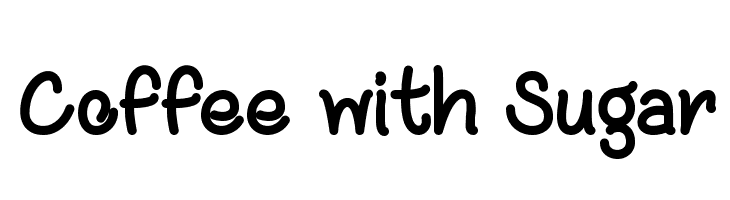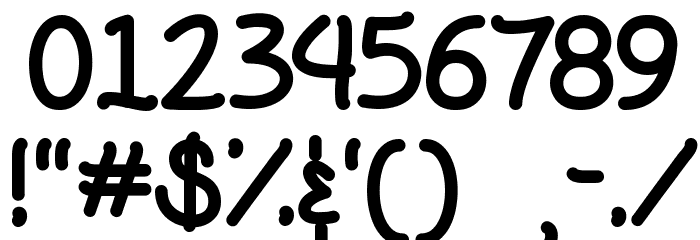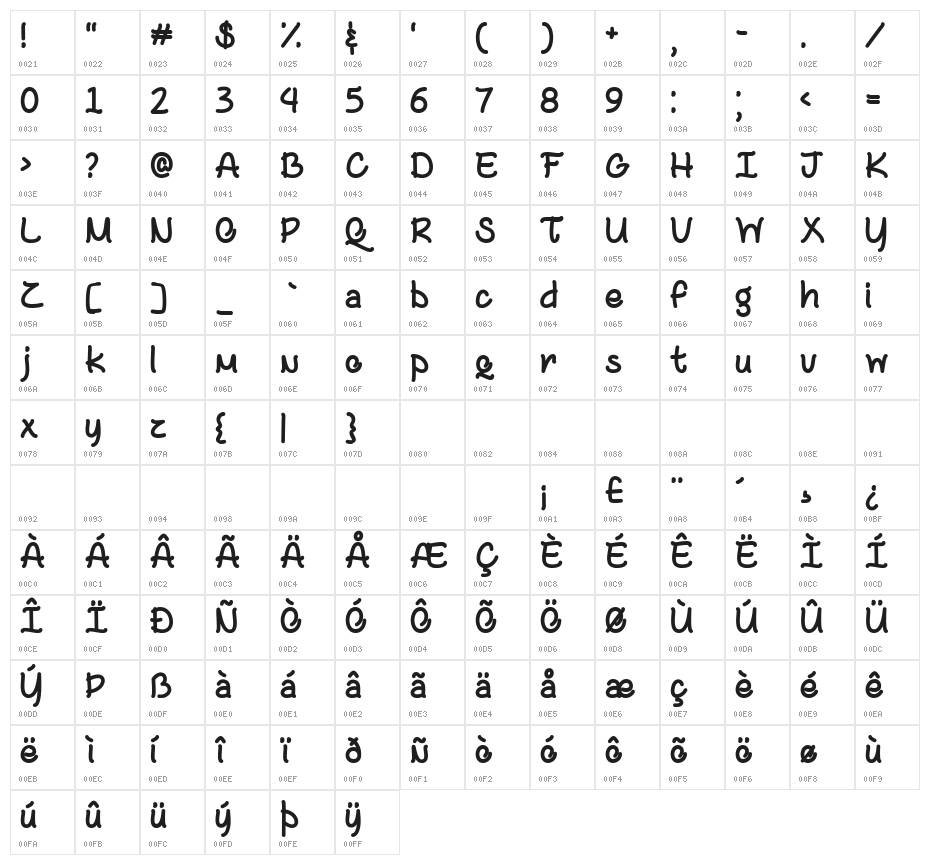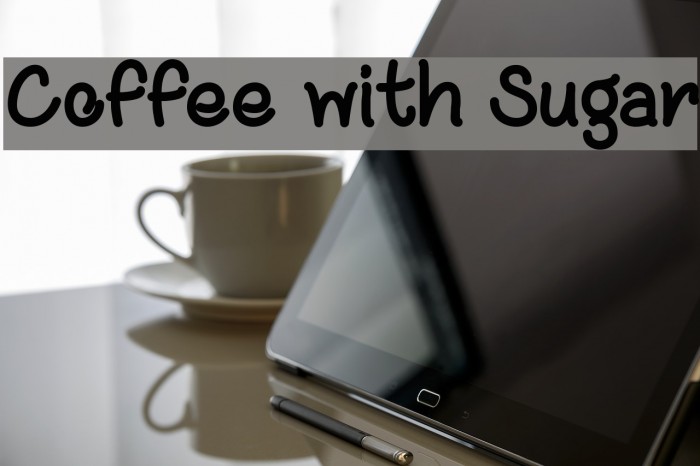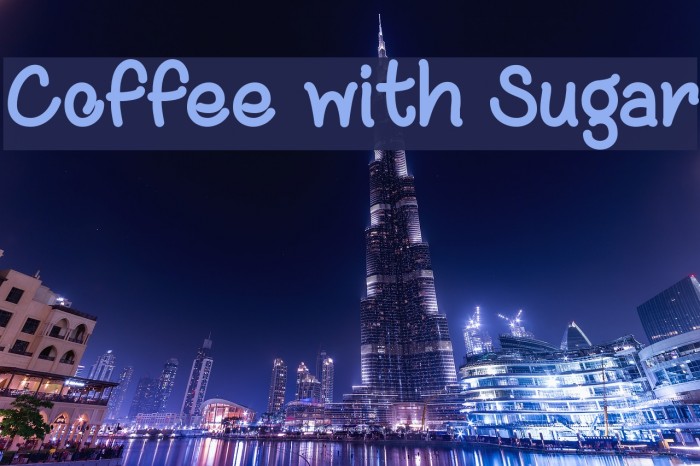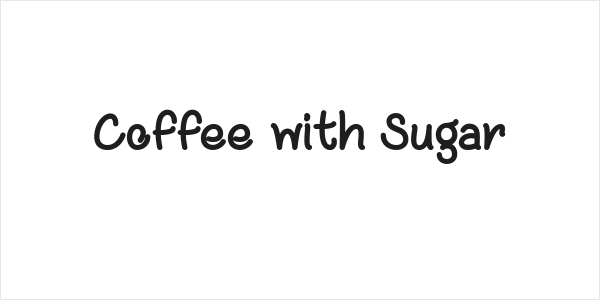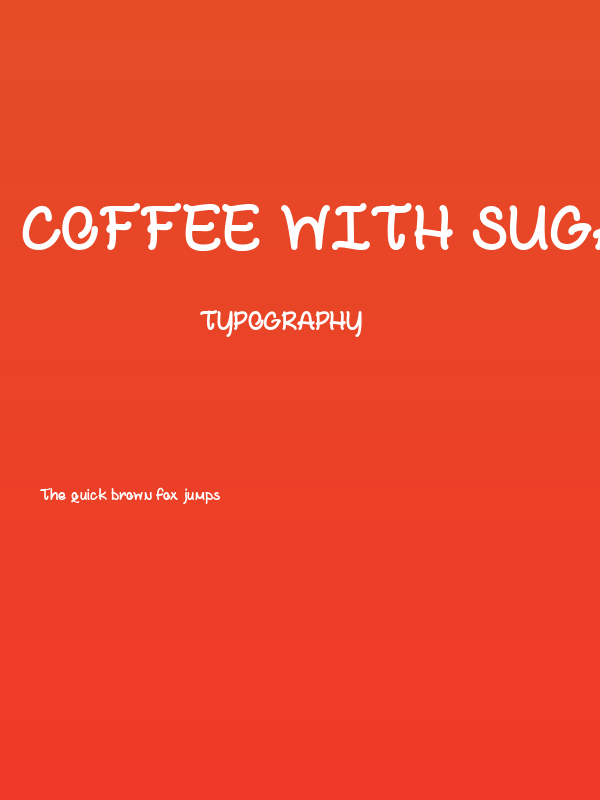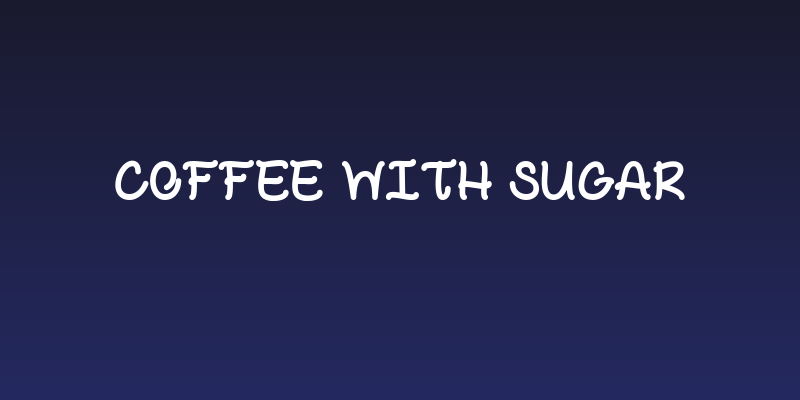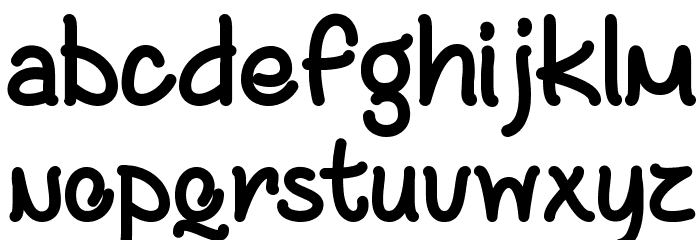
Coffee with Sugar Font
Coffee with Sugar Description
This playful and whimsical font features a handwritten style with smooth, rounded edges and a casual feel. The letters are slightly irregular, adding a touch of personality and charm. The uppercase and lowercase characters maintain a consistent flow, while the numerals and special characters complement the overall design. The font's friendly appearance makes it suitable for projects that require a personal touch or a fun, informal vibe. Its legibility is maintained across different sizes, making it versatile for various applications.
| Proposed Projects | Ideal for greeting cards, children's books, playful branding, and social media graphics. |